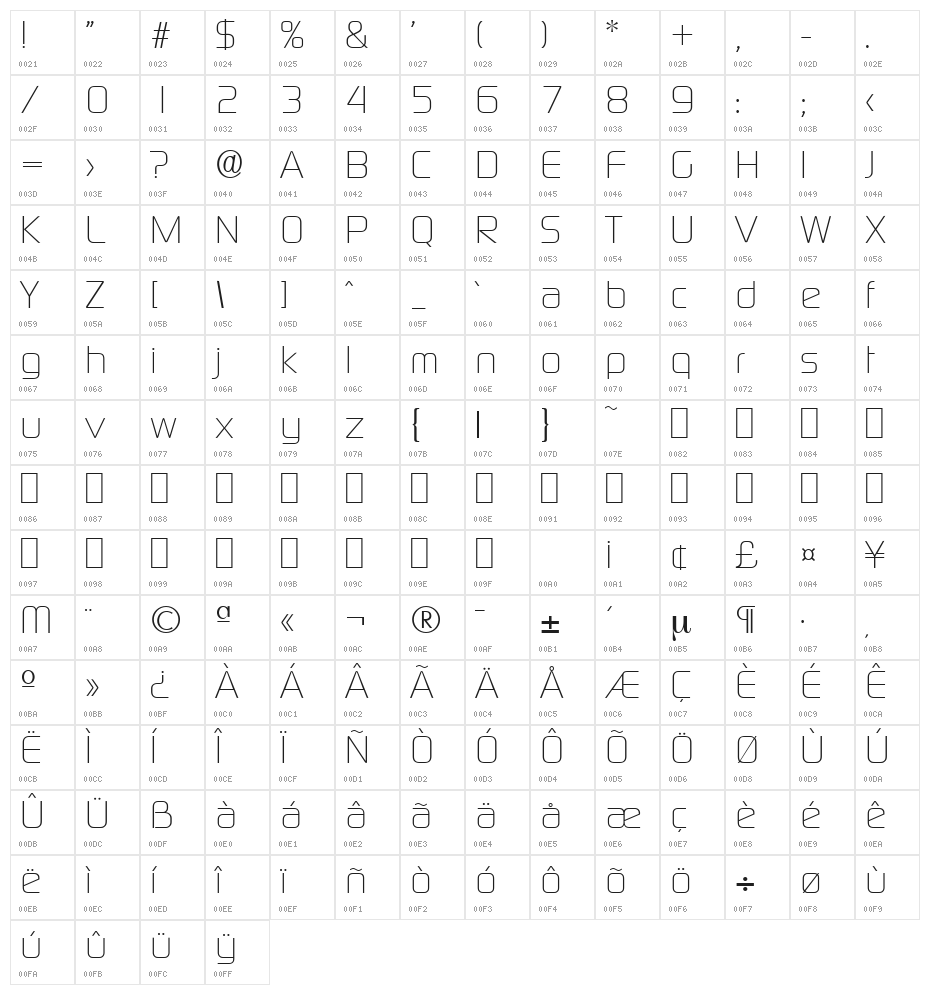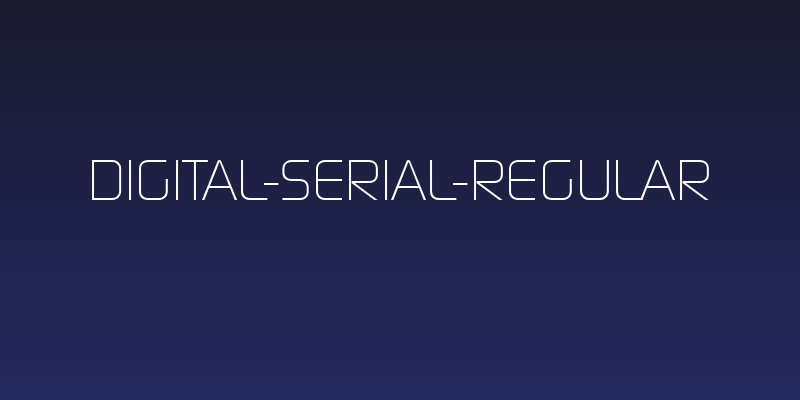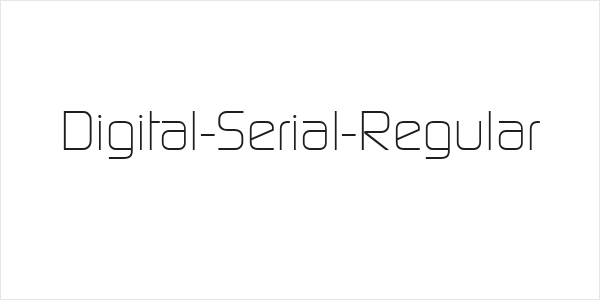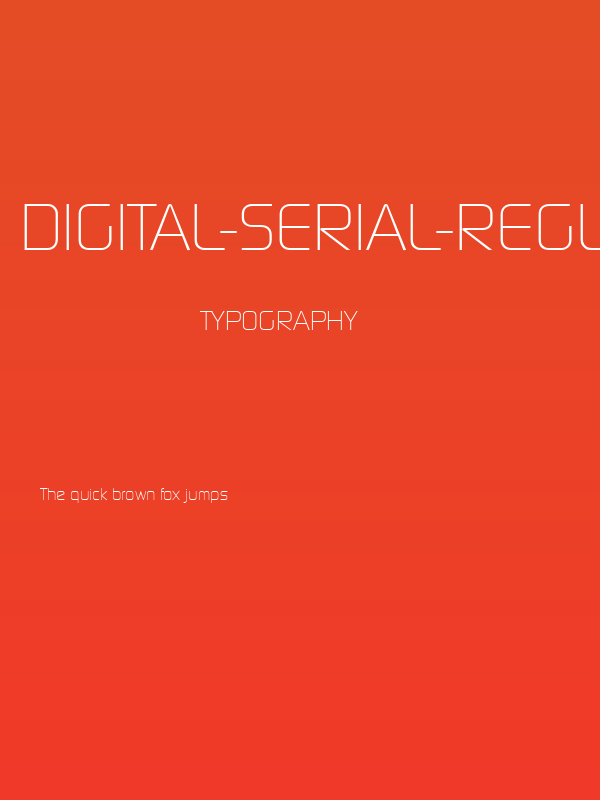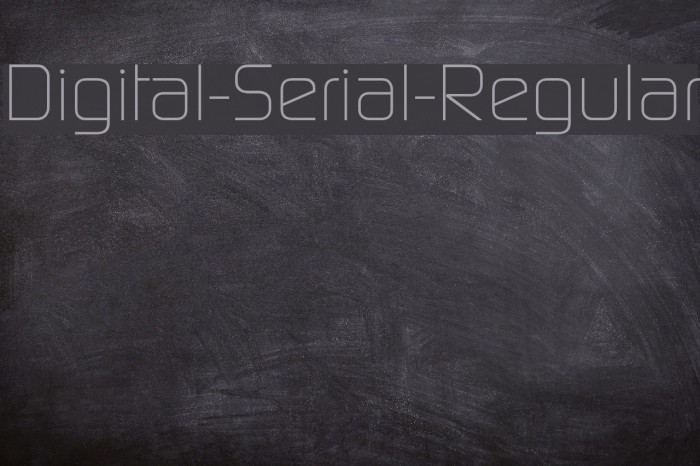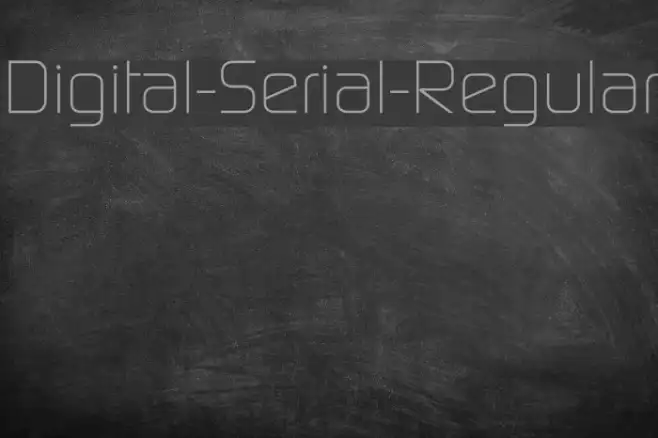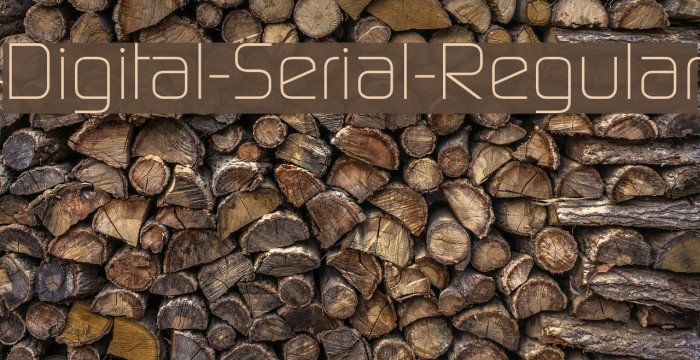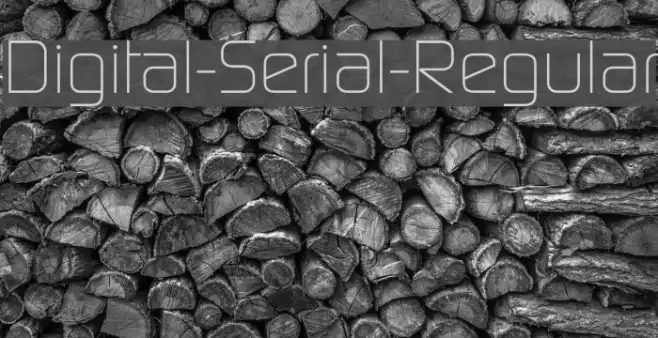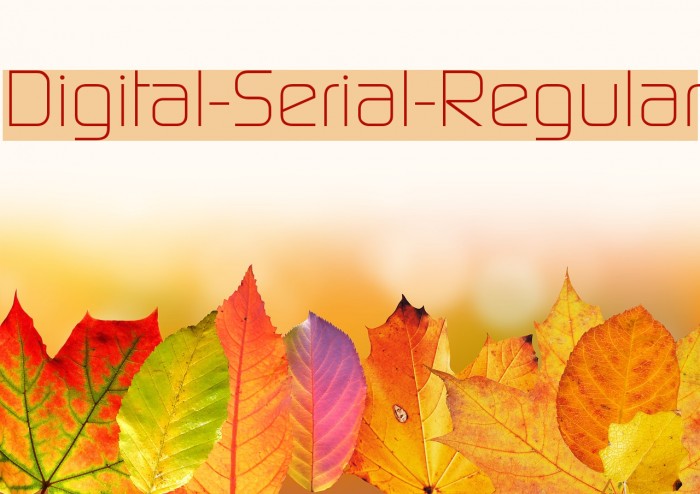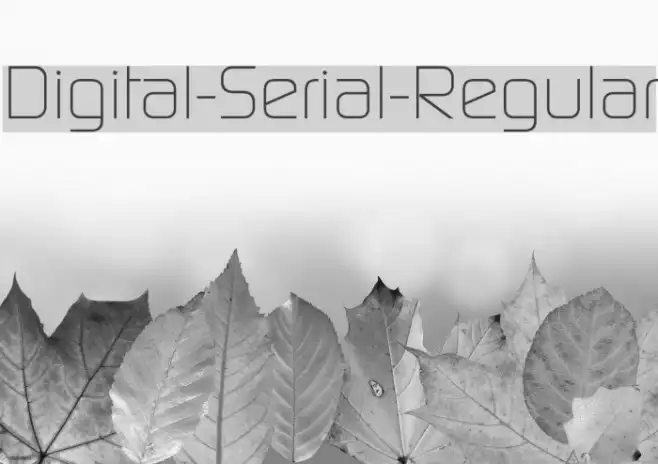
Digital-Serial-Regular Font
Digital-Serial-Regular Description
This font features a sleek, modern design with a geometric structure. The characters are constructed with clean, straight lines and rounded edges, giving it a futuristic and digital appearance. The uppercase and lowercase letters maintain a consistent height, contributing to a uniform look. The numerals and special characters follow the same design principles, ensuring coherence across all glyphs. This font's minimalistic style makes it suitable for digital displays and tech-related projects.
| Use Case | Headlines, Digital displays, Tech branding |
| Proposed Projects | Ideal for digital interfaces, tech branding, futuristic designs, and modern advertising. |